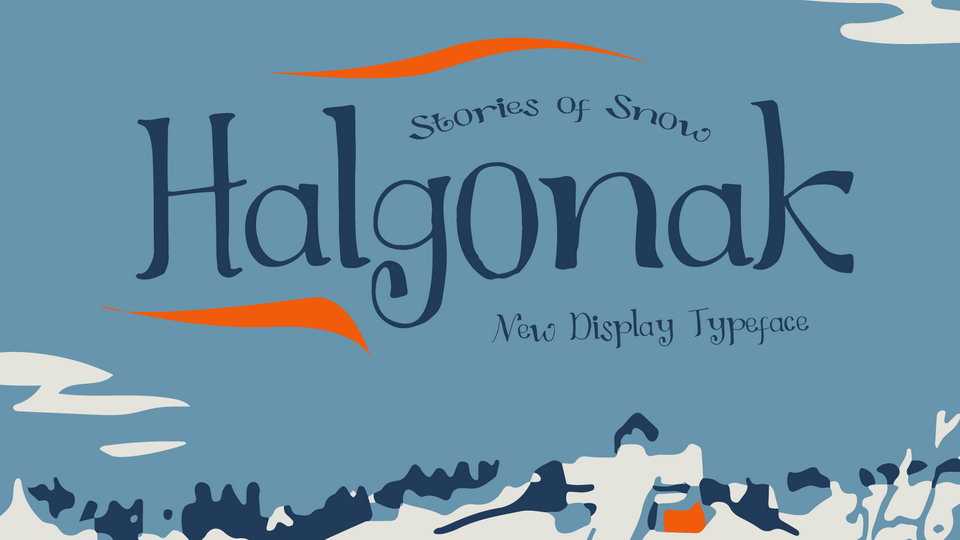
Download Halgonak, a font with fresh and lively theme. With fun hand-writing style, this typeface will give a cheerful and personal touch for your non-formal designs but can also be elegant for your formal ones.